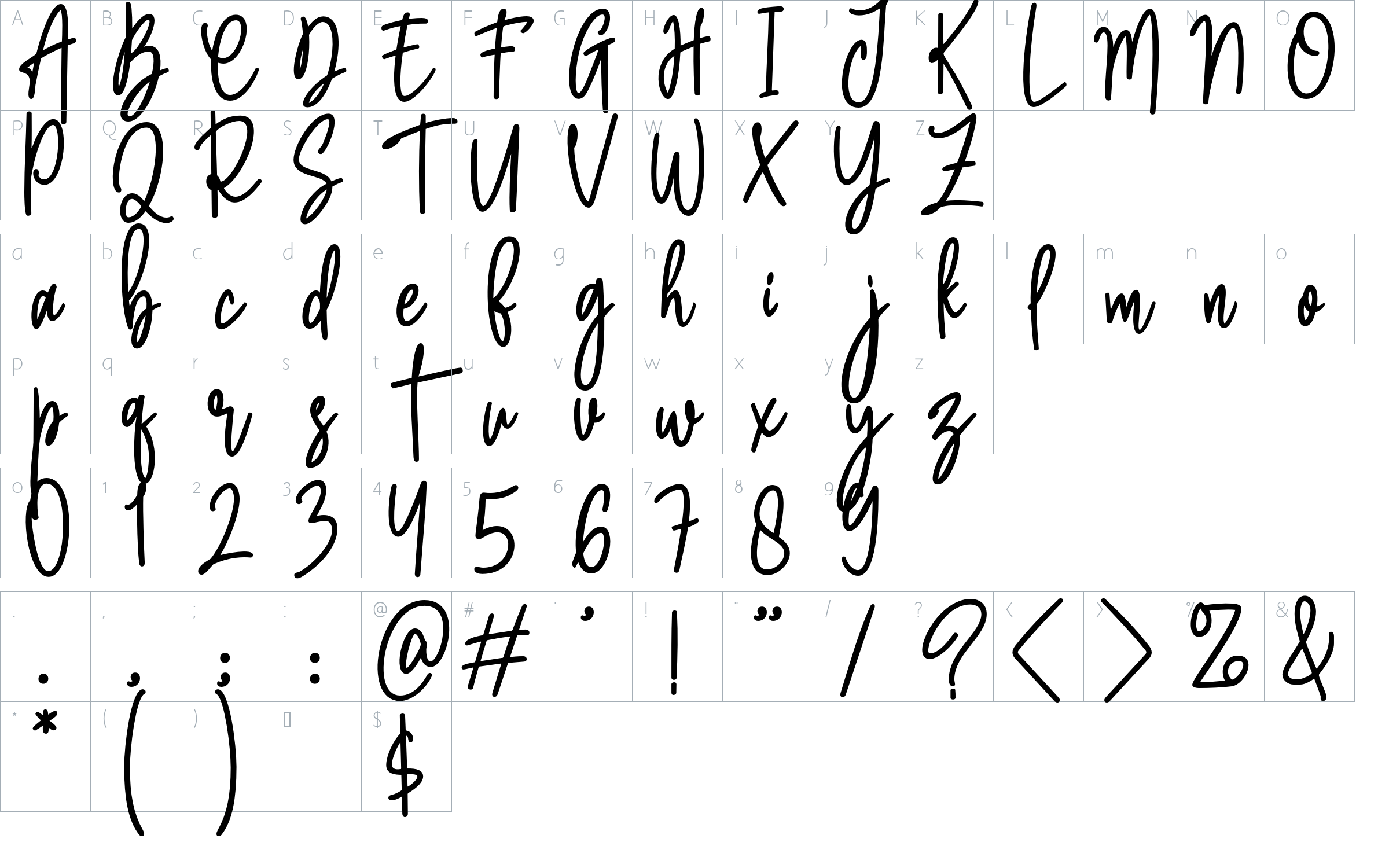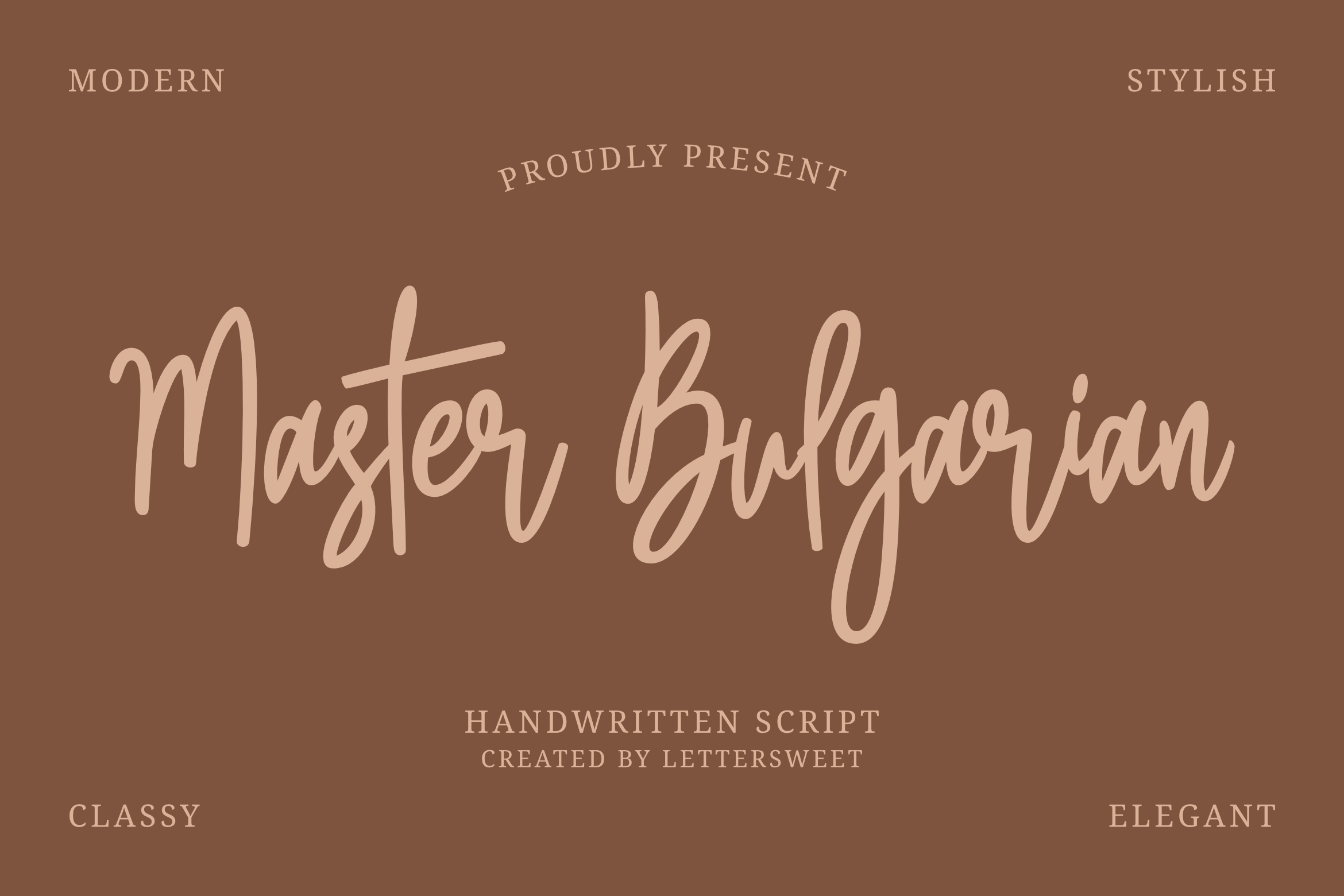
Master Bulgarian - Signature Font Font
About Master Bulgarian - Signature Font
Master Bulgarian is signature collection font with natural movement make looks elegant, classy and beauty for your latest project.
Master Bulgarian is perfect for photography, watermark, social media posts, advertisements, logos & branding, invitation, product designs, label, stationery, wedding designs, product packaging, special events or anything that need handwriting taste.